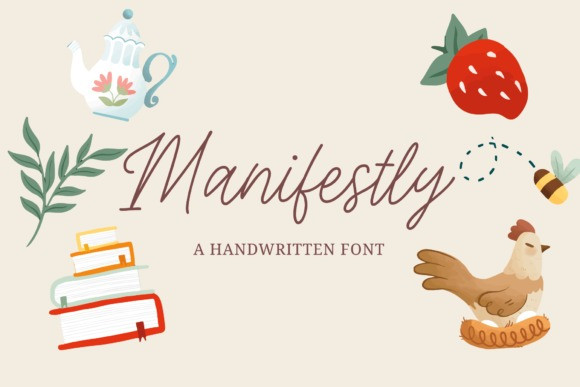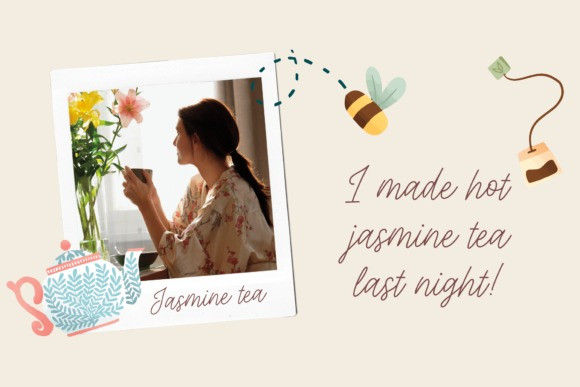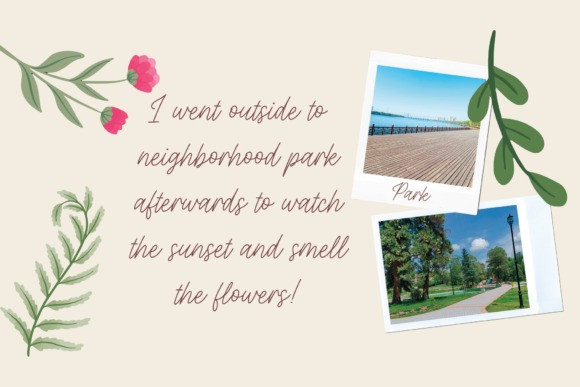
Manifestly Font
Manifestly is a slim and exquisite handwritten font. Stylish, graceful, and flowing, this font will definitely elevate the look of any of your beautiful creations while keeping them grounded and natural.